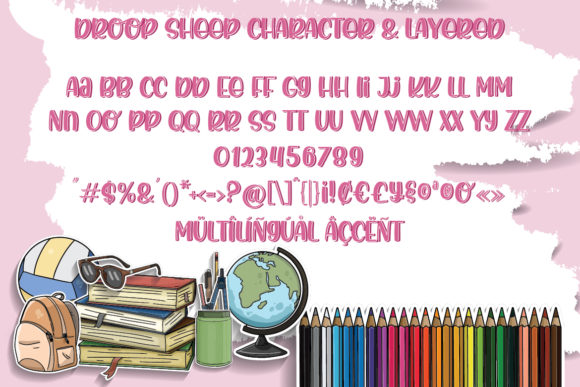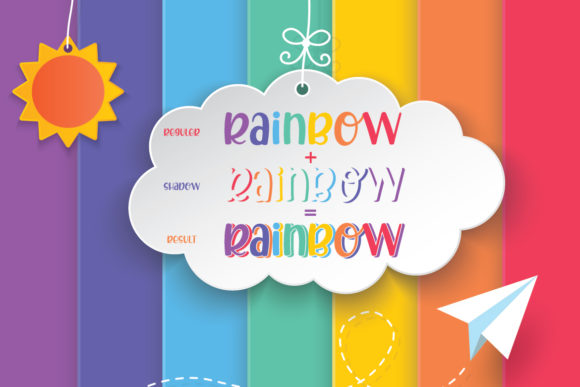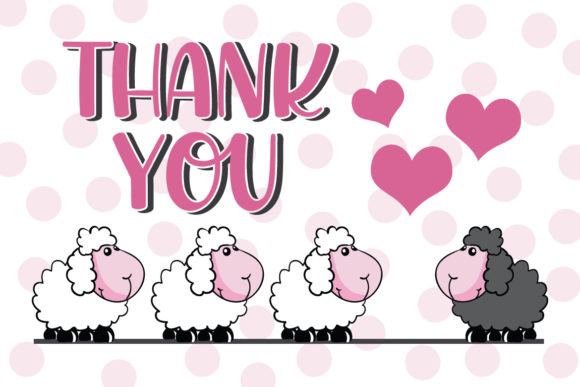
Droop Sheep Font: A Cute & Layered Display Font for Cricut Crafts
About the Droop Sheep Font
Crafted with precision, the Droop Sheep Font is ready to bring your ideas to life. Droop Sheep feels fun, playful and cute. This display font will make any design idea stand out!
Droop Sheep’s playful energy makes it ideal for children’s books, branding for playful products, or eye-catching headlines in advertising. It works exceptionally well in short bursts of text, such as logos, posters, and social media graphics. However, its highly stylized forms make it unsuitable for body text or user interfaces where readability is paramount.
Pairing Droop Sheep with a clean sans-serif like Open Sans for body text creates a nice contrast; its friendly nature is balanced by the neutral, professional feel of the sans-serif. Alternatively, a classic serif such as Garamond adds sophistication and a touch of formality.
The font’s overall personality is undeniably cheerful and approachable, making it perfect for brands targeting a young or family-oriented audience. Avoid using it for projects requiring seriousness or formality.